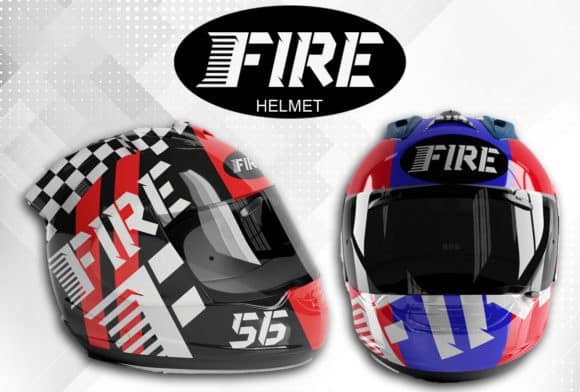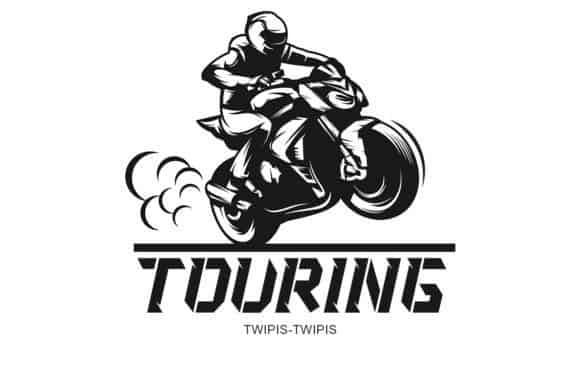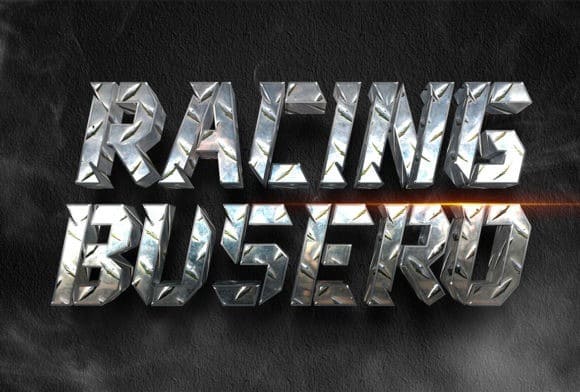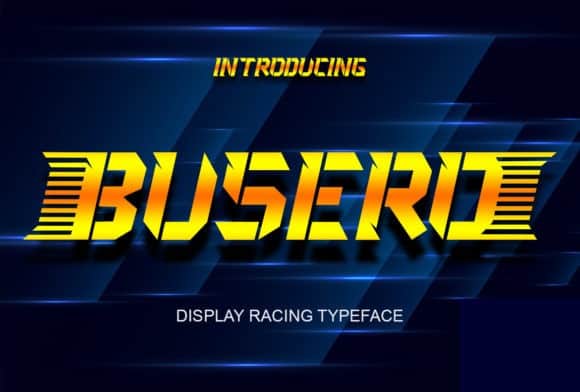
Busero Display Font
Busero Display Font is a strong & powerful font with sharp corner style. Combination of thick, pierce edged, & intense are make it stand out more. It is a typeface from the designer Sealoung. Busero is a bold and powerful display font. It celebrates abstract shapes in all their eclectic beauty. Add this font to your creative ideas and notice how it makes them stand out!. Suitable for Games, Apps, Movies, Animations Titles, etc.